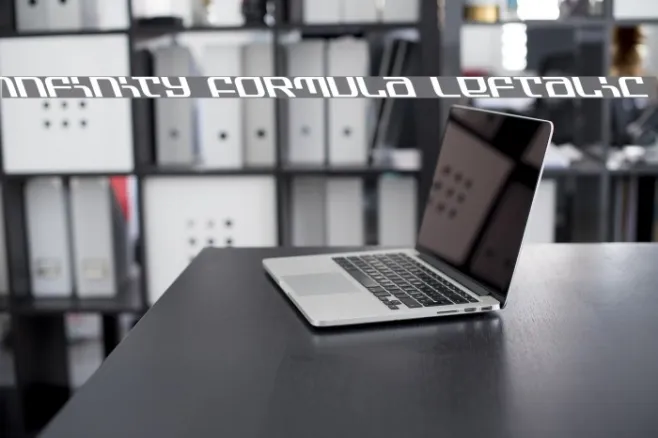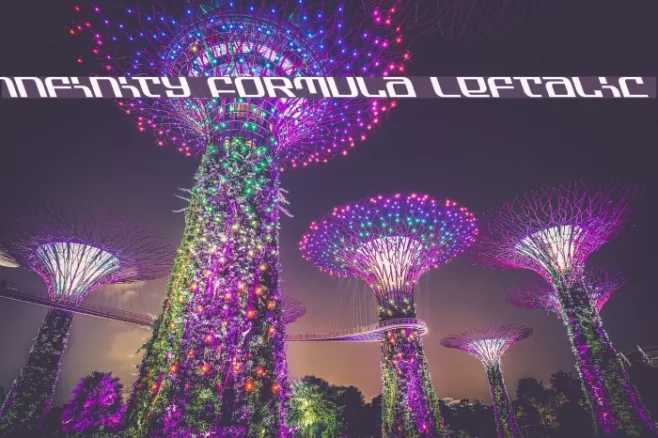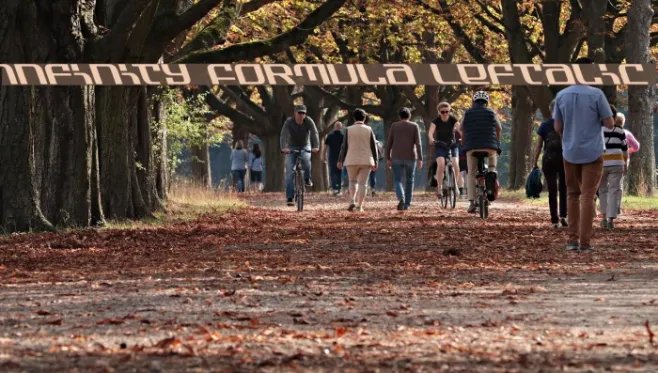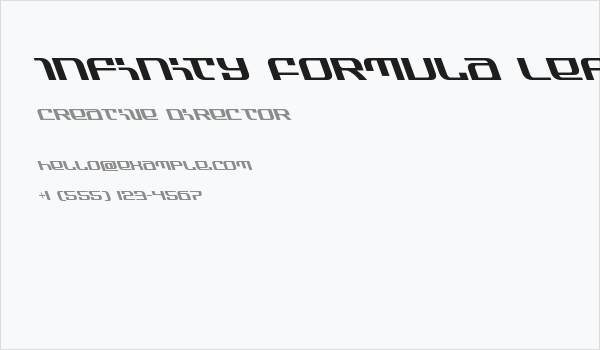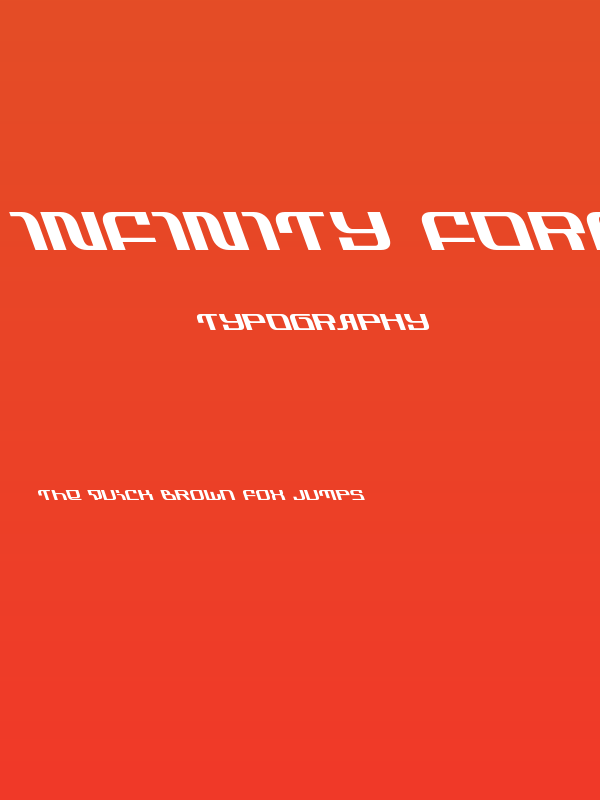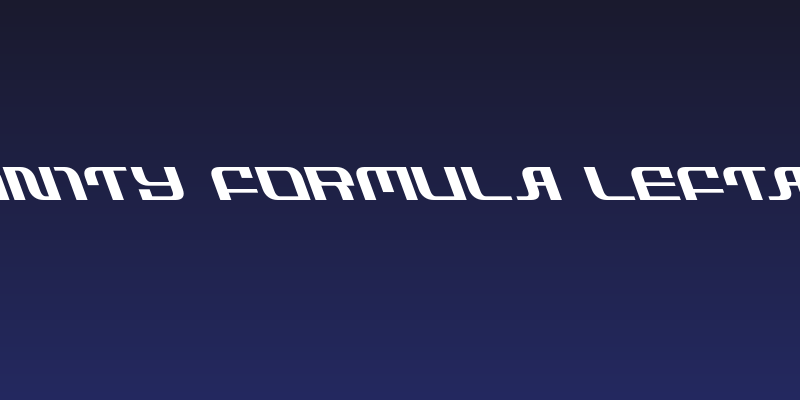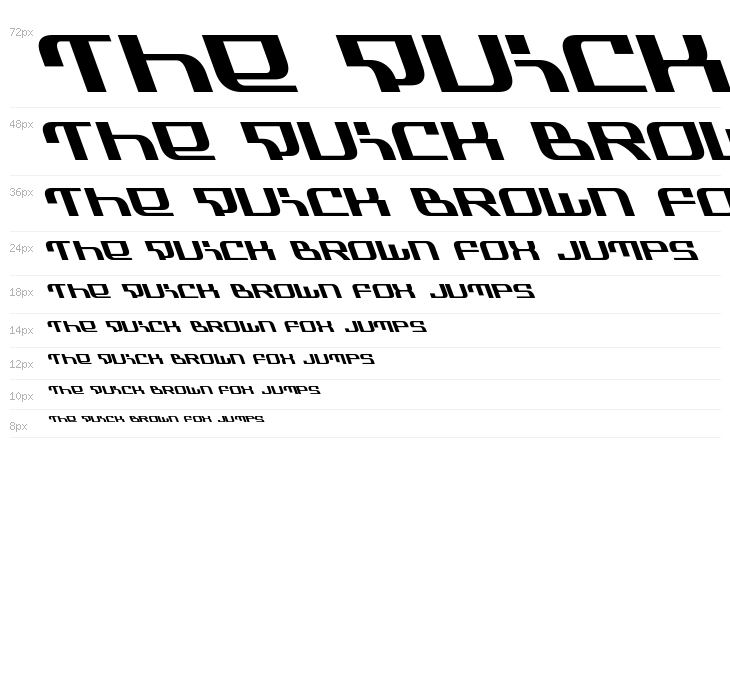
Infinity Formula Leftalic Font
Infinity Formula Leftalic Description
This font exhibits a futuristic and angular design, characterized by its sharp edges and geometric shapes. The letters are slanted, giving a sense of motion and speed, which is further emphasized by the bold and solid strokes. The uppercase and lowercase letters maintain a consistent style, with a unique twist in certain characters like 'G', 'J', and 'Q'. The numerals are equally dynamic, matching the overall aesthetic of the alphabet. Special characters are designed to complement the letterforms, maintaining the same angular and bold appearance. This font is ideal for projects that require a modern and edgy look.
| Proposed Projects | Ideal for sci-fi themed designs, video game titles, technology branding, and dynamic posters. |